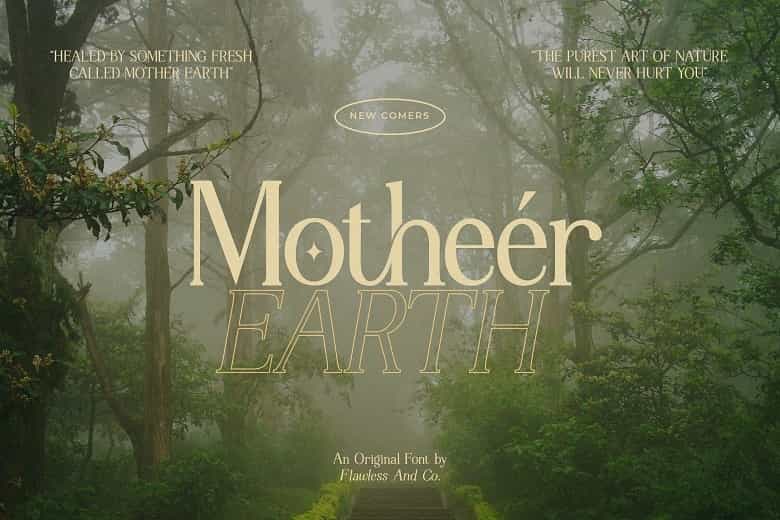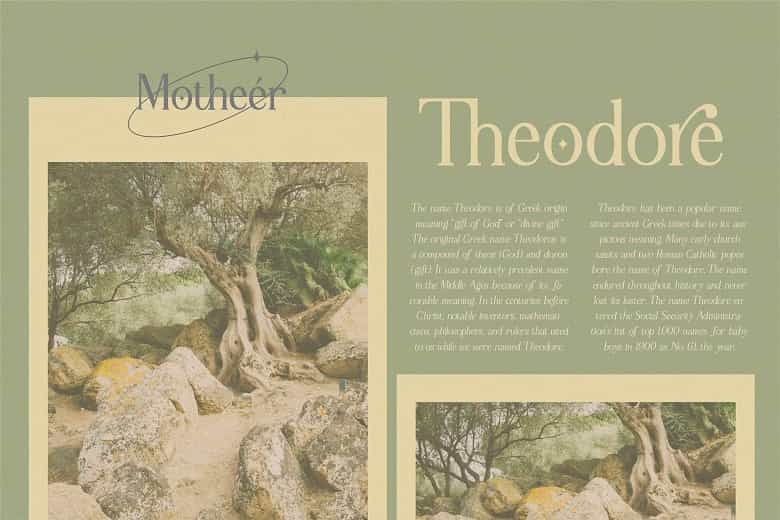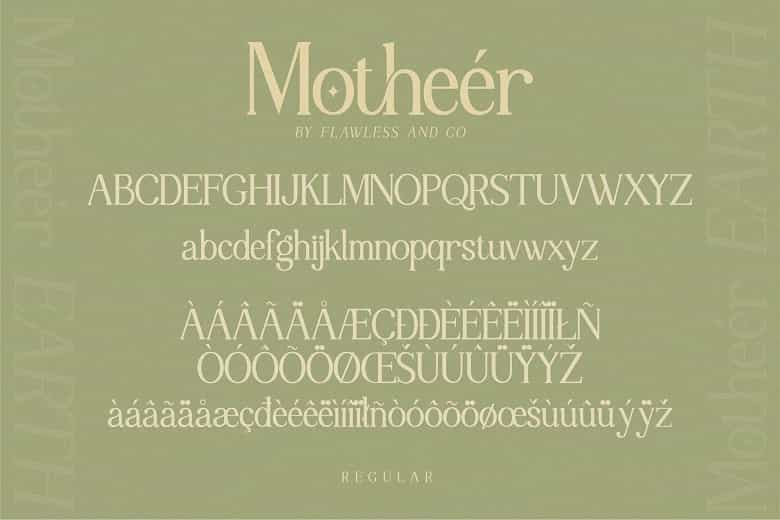
Motheér is a new and very elegant serif display font. It has a very classy, elegant, yet modern design that can be used for logos, branding, invitations, stationery, wedding designs, social media posts and many more!